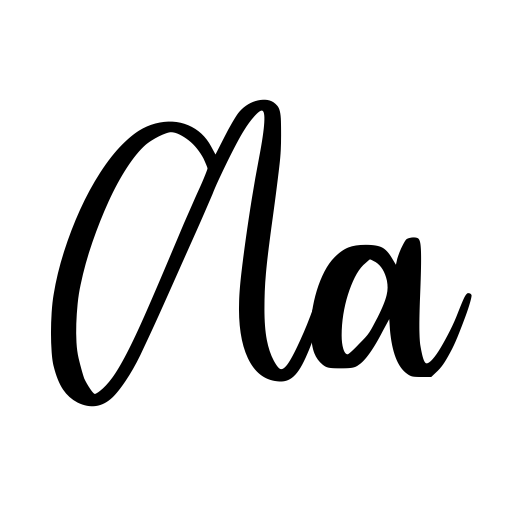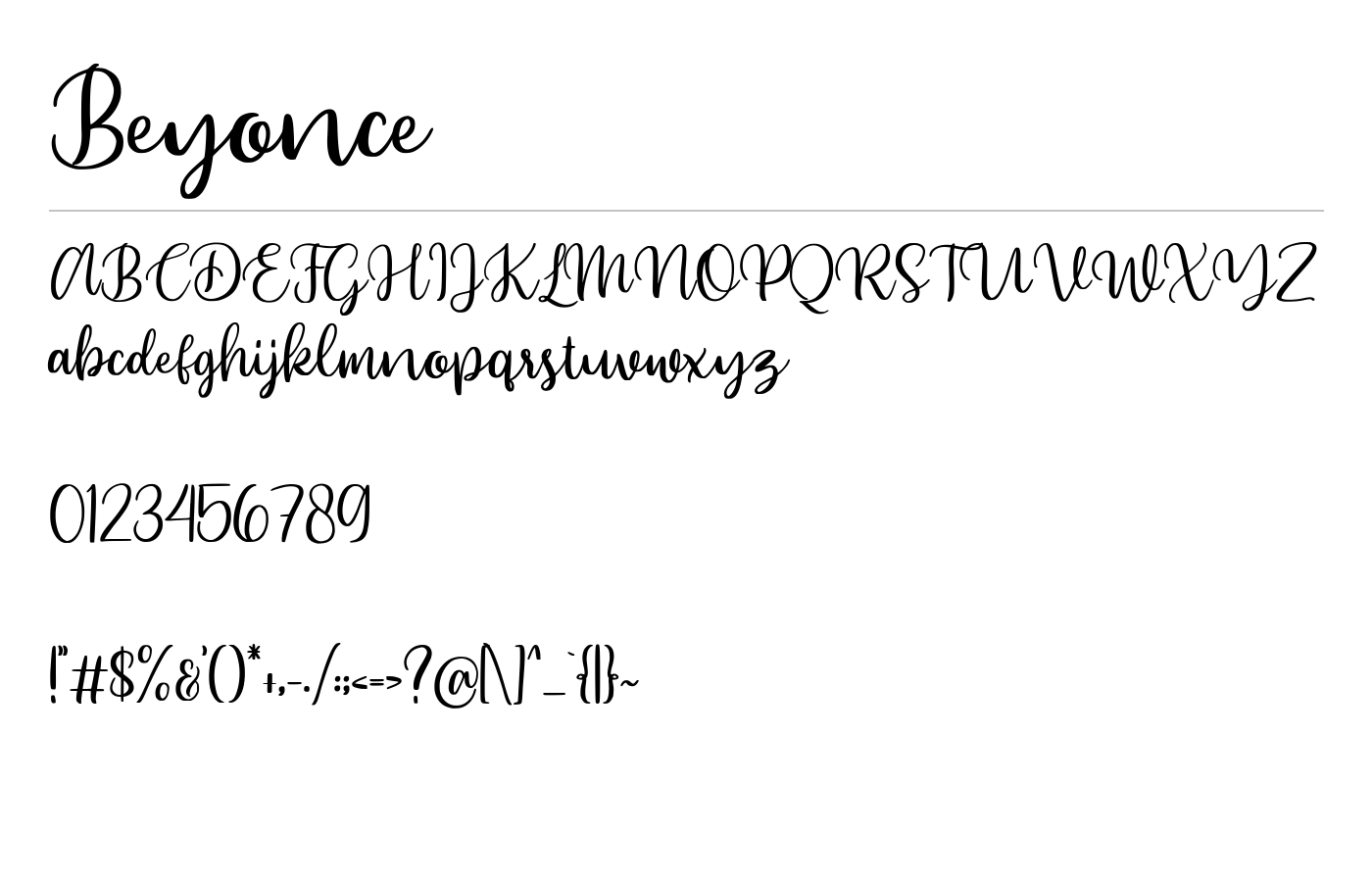
Beyonce Font is a stylish and elegant script typeface featuring smooth, flowing strokes with a handwritten feel. Its balanced mix of thin and slightly thicker lines, combined with a lively, informal charm, makes it perfect for creative projects like invitations, branding, and feminine or artistic designs. This font adds a personal, graceful touch while maintaining good readability in both uppercase and lowercase.
Beyonce Font